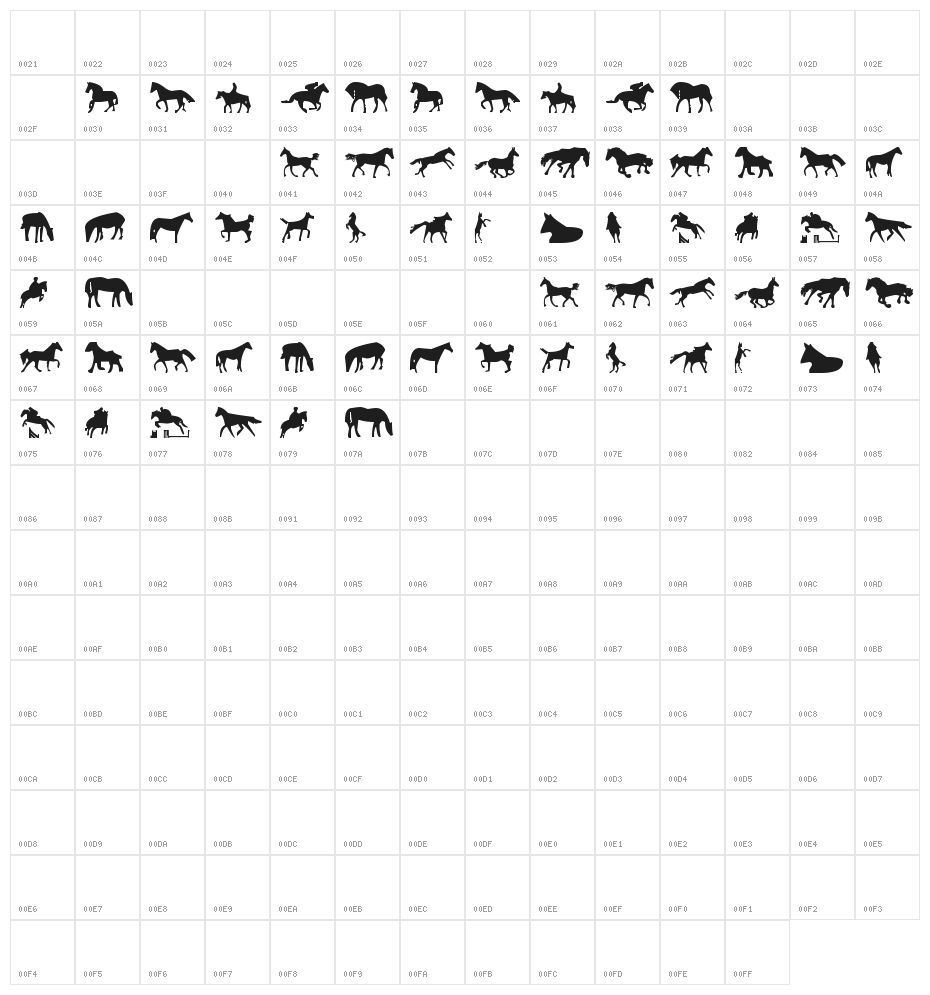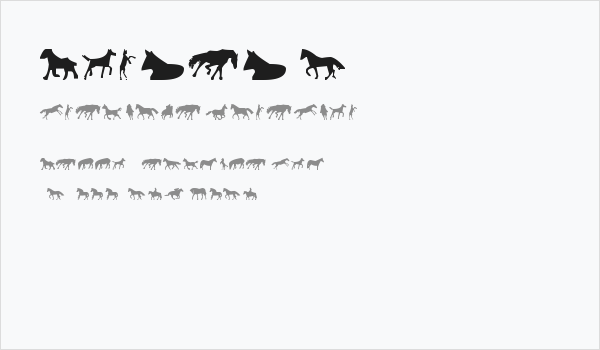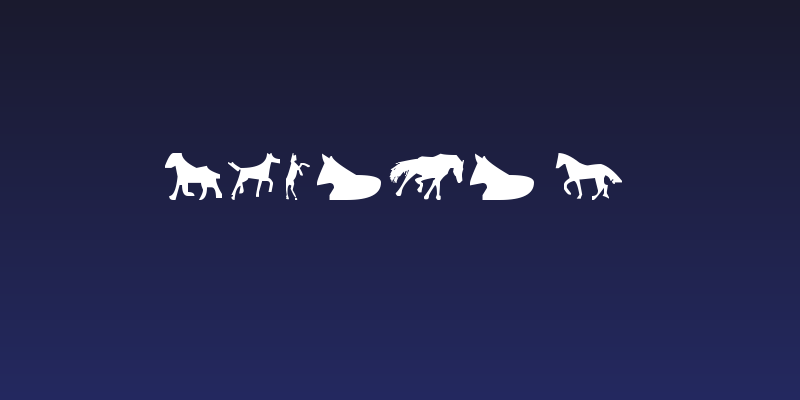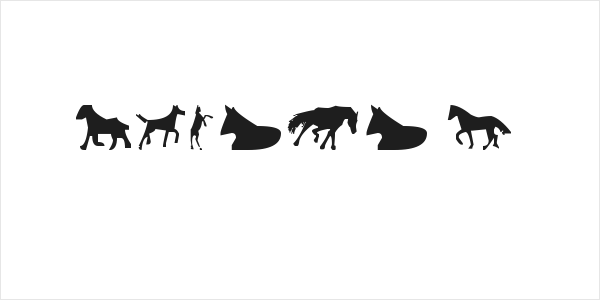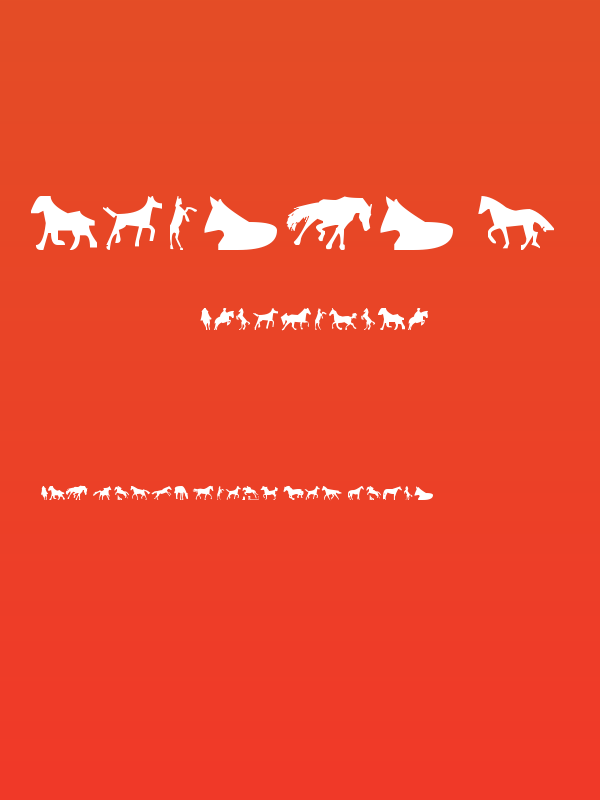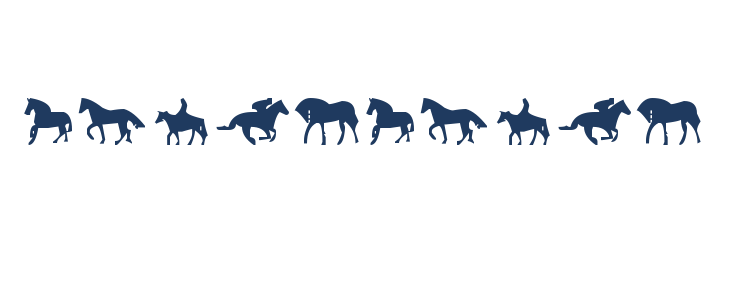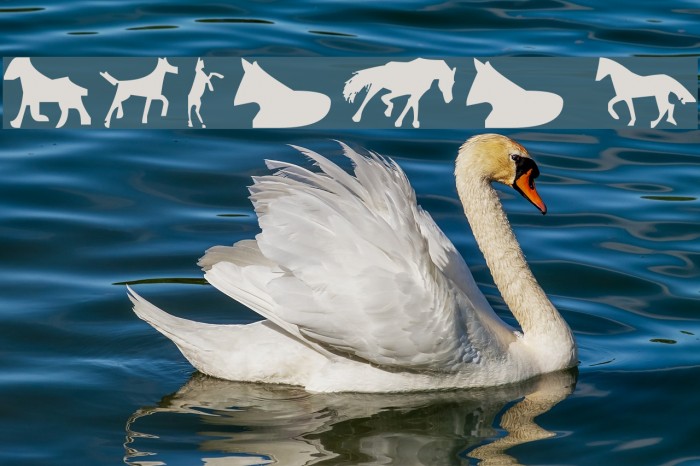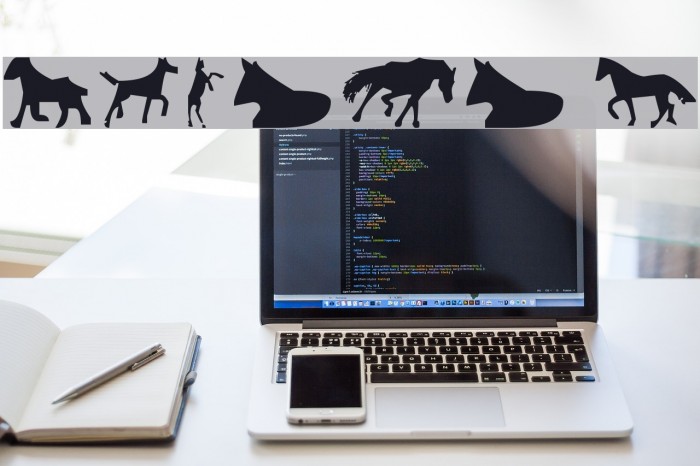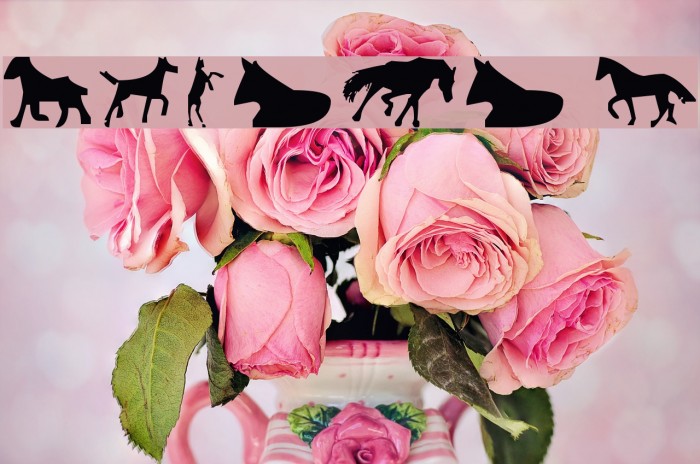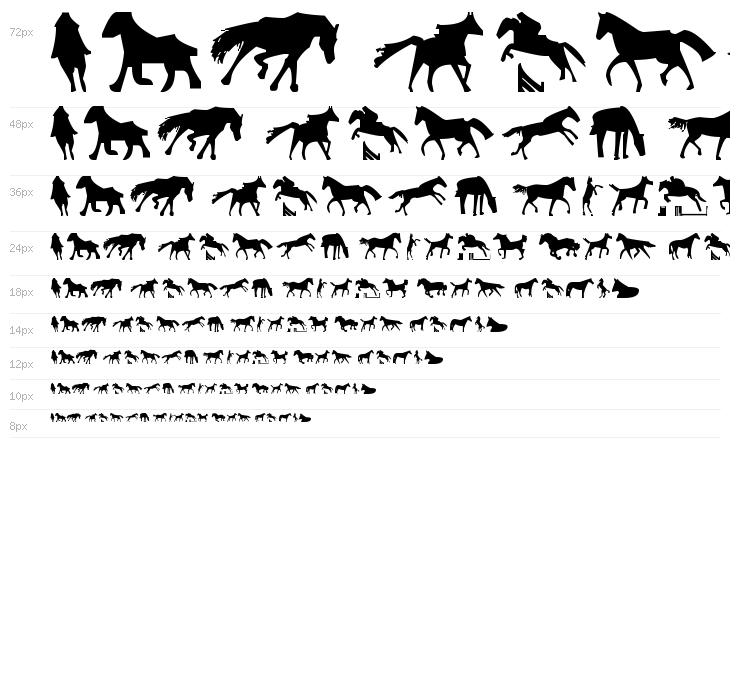
Horses 1 Font
Horses 1 Description
A decorative display font composed of horse and equestrian-themed silhouettes, including horses in various poses, riders, and related imagery, with each character represented by a unique pictogram.
| Overall Style | Decorative, Thematic |
| Use Case | Logos, Posters, Themed Headlines, Educational Graphics |
| Proposed Projects | Children’s books, equestrian event posters, themed party invitations, educational materials, logo design for horse-related businesses. |